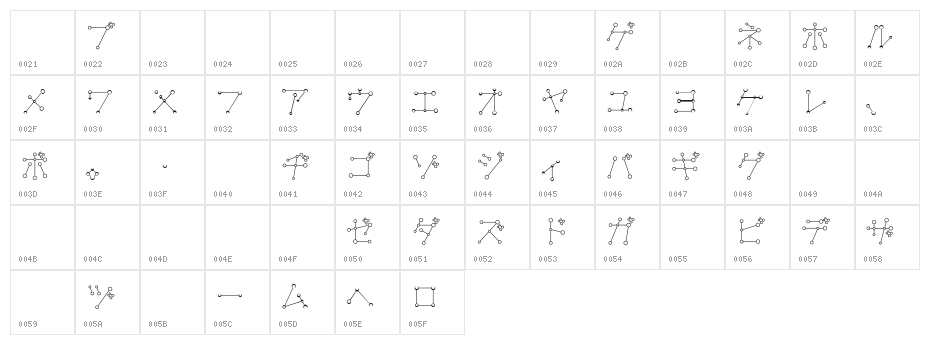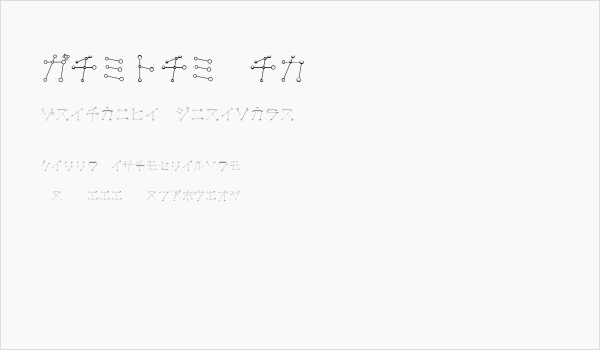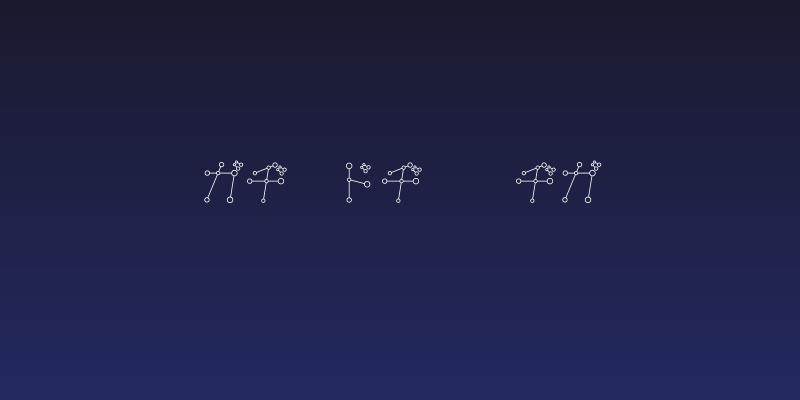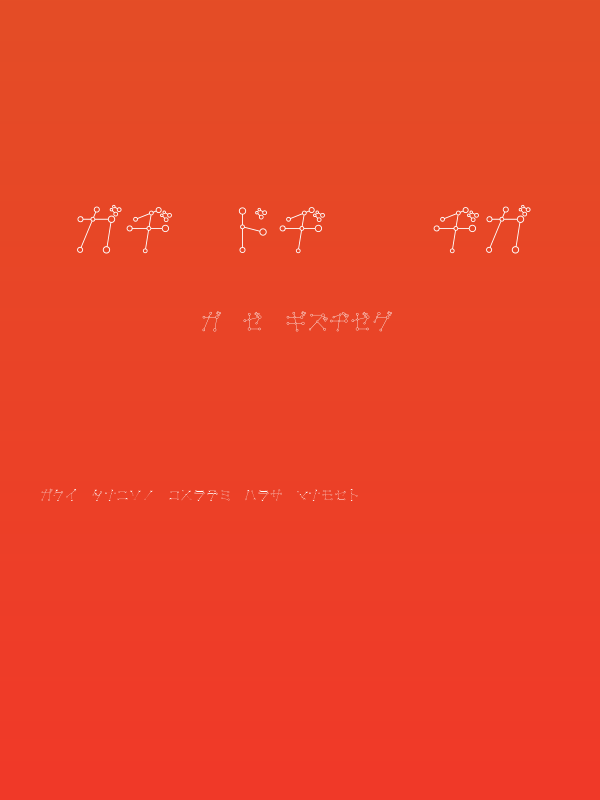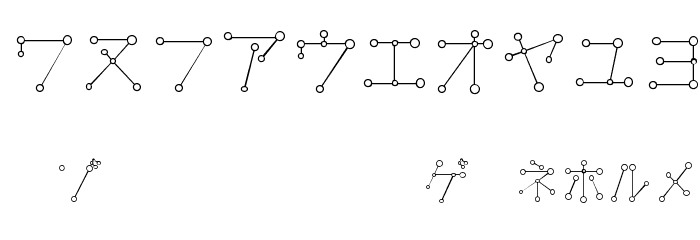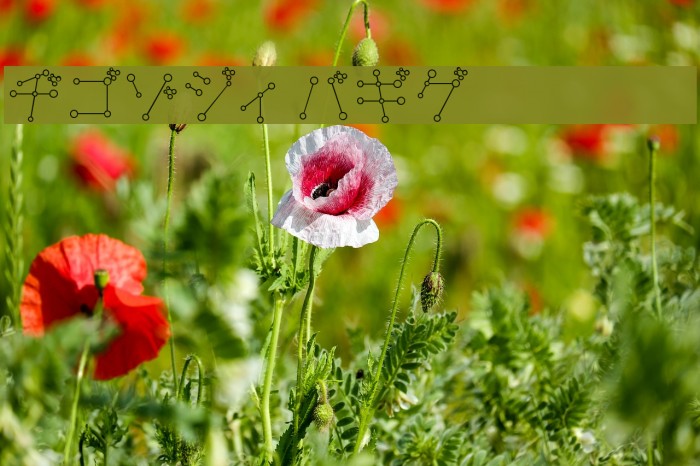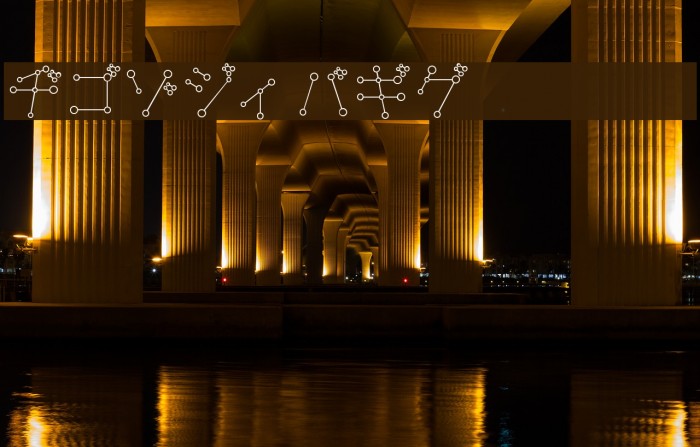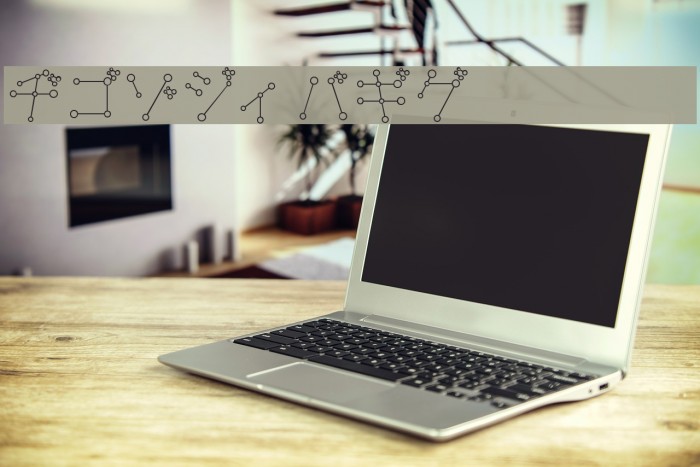
TansanKat Font
TansanKat Description
This font is a unique and creative representation of characters using a constellation-like design. Each letter and number is composed of lines connecting small circles, resembling star maps. The style is highly decorative and abstract, making it stand out with its celestial theme. The characters are evenly spaced, and the overall appearance is both artistic and modern, suitable for projects that require a touch of whimsy and imagination. The font's design is consistent across all characters, maintaining a cohesive look that is both intriguing and visually appealing.
| Use Case | Logos, Posters, Creative Projects |
| Proposed Projects | Ideal for astrology-themed projects, creative posters, unique branding, and artistic invitations. |